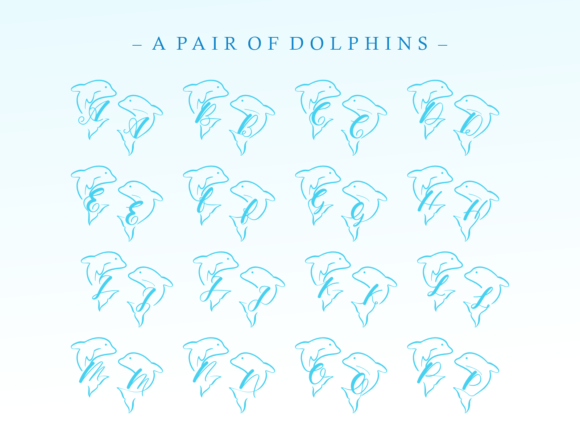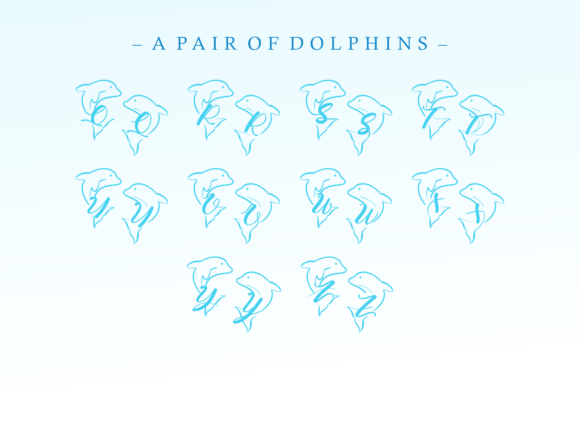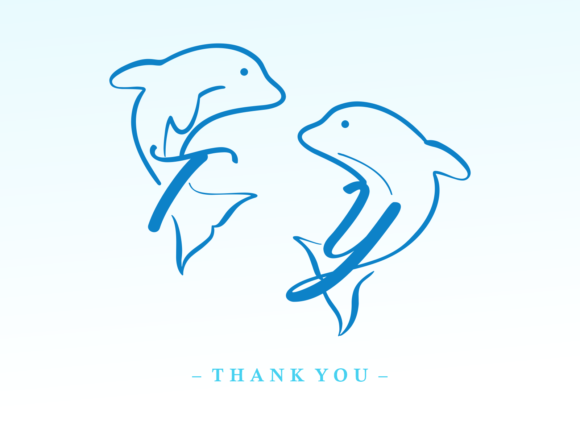
Discover the Magic of A Pair of Dolphins Font
Have you ever stumbled upon a font that makes you feel like you’re swimming in a sea of creativity? For designers, it’s that moment of serendipity when everything falls into place, and our imagination runs wild. It’s the moment when we find the perfect font to match our vision, and it all starts with a spark of inspiration.
A Pair of Dolphins Font is that spark, a beautifully crafted decorative font that will transport you to an underwater world of wonder. Featuring dainty dolphins as ornaments, this font is a masterpiece of delicate design, perfect for adding a touch of whimsy to your projects. Whether you’re designing invitations, stationary art, or social media posts, A Pair of Dolphins Font is the perfect companion to bring your ideas to life.
A Pair of Dolphins Font Key Features
- Font Family: A Pair of Dolphins, a unique and playful font designed to evoke the image of dolphins.
- Unique Characteristics: The font features a whimsical and dreamy feel, with subtle swashes and flourishes that add a touch of elegance to any design.
A Designer’s Take on “A Pair of Dolphins Font”
Overall, I think “A Pair of Dolphins Font” has a lot going for it. The font is playful, fun, and has a certain whimsy to it that can really add some personality to a design. ✨ The bold lines and curves of the font make it perfect for use in children’s books, advertisements, or other materials where you want to convey a sense of excitement and energy. ✨ The font also comes in a range of weights, from light to bold, which makes it versatile and easy to use in a variety of contexts.
However, there are a few limitations to consider. ⚠️ The font can feel a bit overly ornate at times, which can make it difficult to read in certain situations. ⚠️ Additionally, the font may not be suitable for use in formal or professional settings, where a more subdued and serious tone is often preferred.
- Playful, whimsical design
- Bold lines and curves
- Range of weights (light to bold)
- Perfect for use in children’s books, advertisements, and other materials
- Can feel overly ornate at times
- May not be suitable for formal or professional settings
Getting the Most Out of A Pair of Dolphins Font
For optimal results, use A Pair of Dolphins font for titles, headings, or emphasis in your designs.
Experiment with different font sizes and colors to create visual hierarchy and draw attention to key elements.
Combine A Pair of Dolphins with other fonts to create a unique and eye-catching visual style.
A Pair of Dolphins font is suitable for:
Children’s books and educational materials
Underwater-themed designs and graphics
Whimsical and playful branding and advertising
Alternatives to A Pair of Dolpins Font
Pacifico is a beautiful script font that resembles handwriting. It is ideal for use in designs where a personal touch is required, such as wedding invitations, menus, and greeting cards.
Compared to A Pair of Dolpins Font, Pacifico has a more elegant and refined feel. While A Pair of Dolpins Font is more playful and quirky, Pacifico is better suited for designs that require sophistication and elegance.
Great Vibes is a stylish and modern script font that is perfect for use in designs where a sense of fun and playfulness is required. It is ideal for use in social media graphics, advertising, and other promotional materials.
Compared to A Pair of Dolpins Font, Great Vibes is more energetic and dynamic. While A Pair of Dolpins Font is more whimsical and quirky, Great Vibes is better suited for designs that require a sense of excitement and adventure.